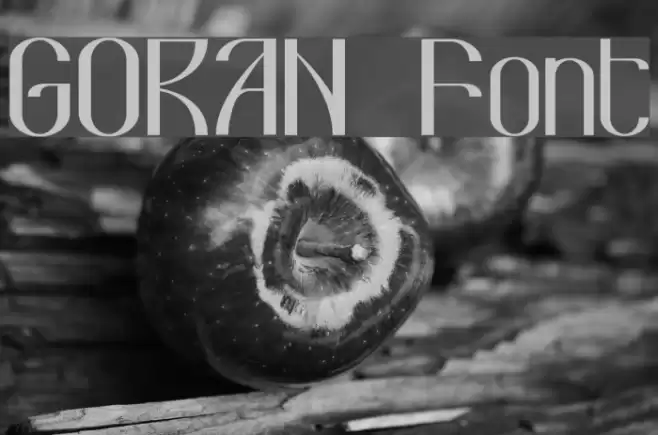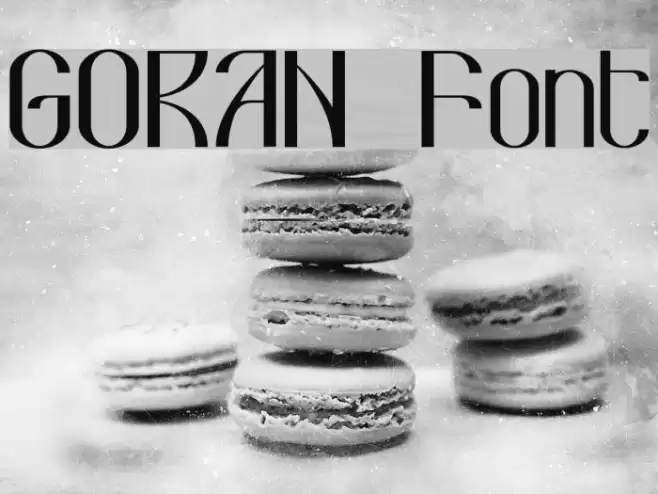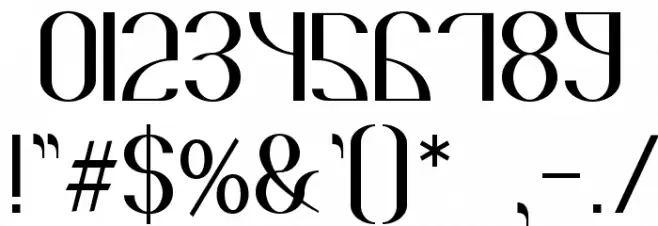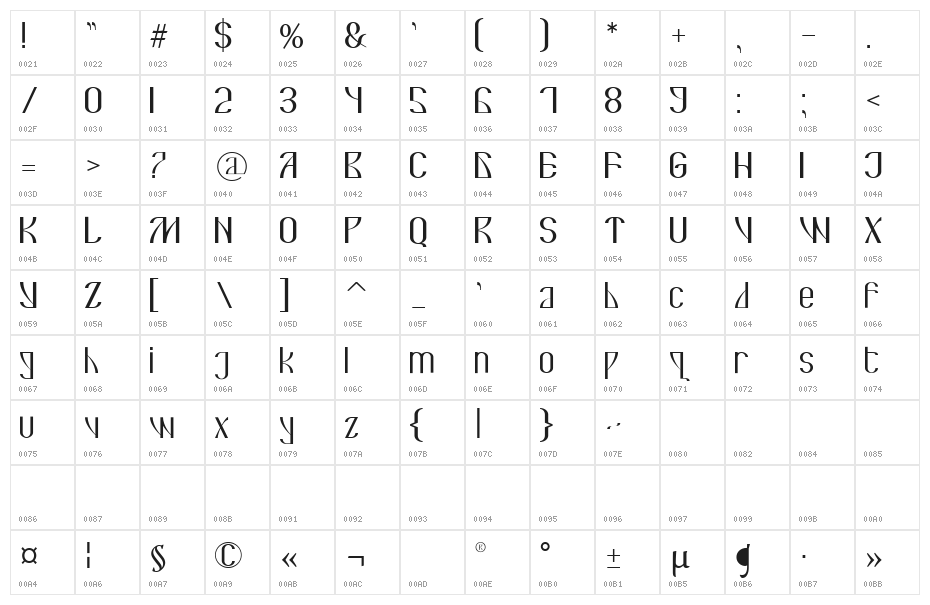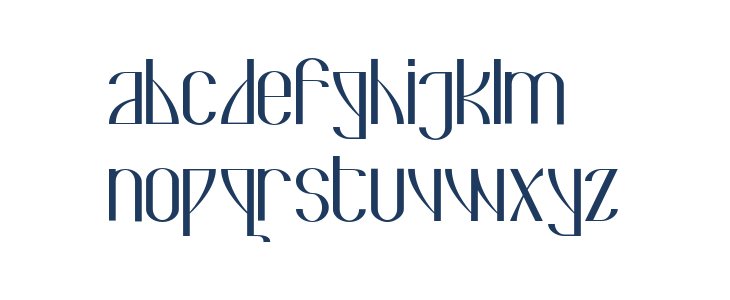
GORAN Font
GORAN Description
This font features a unique and modern design with a high contrast between thick and thin strokes. The characters are elongated with a distinct geometric influence, creating a stylish and contemporary look. The uppercase letters have a bold presence with sharp angles and curves, while the lowercase letters maintain a consistent flow with a slightly softer appearance. The numbers and special characters follow the same design principles, ensuring uniformity across the font. This typeface is visually striking and ideal for making a statement.
A modern, geometric font with high contrast and elongated characters from Uncategorized fonts.
- Proposed Projects: Ideal for branding, logos, headlines, and editorial design where a modern and stylish appearance is desired.
- Use Case: Headlines, Logos, Branding